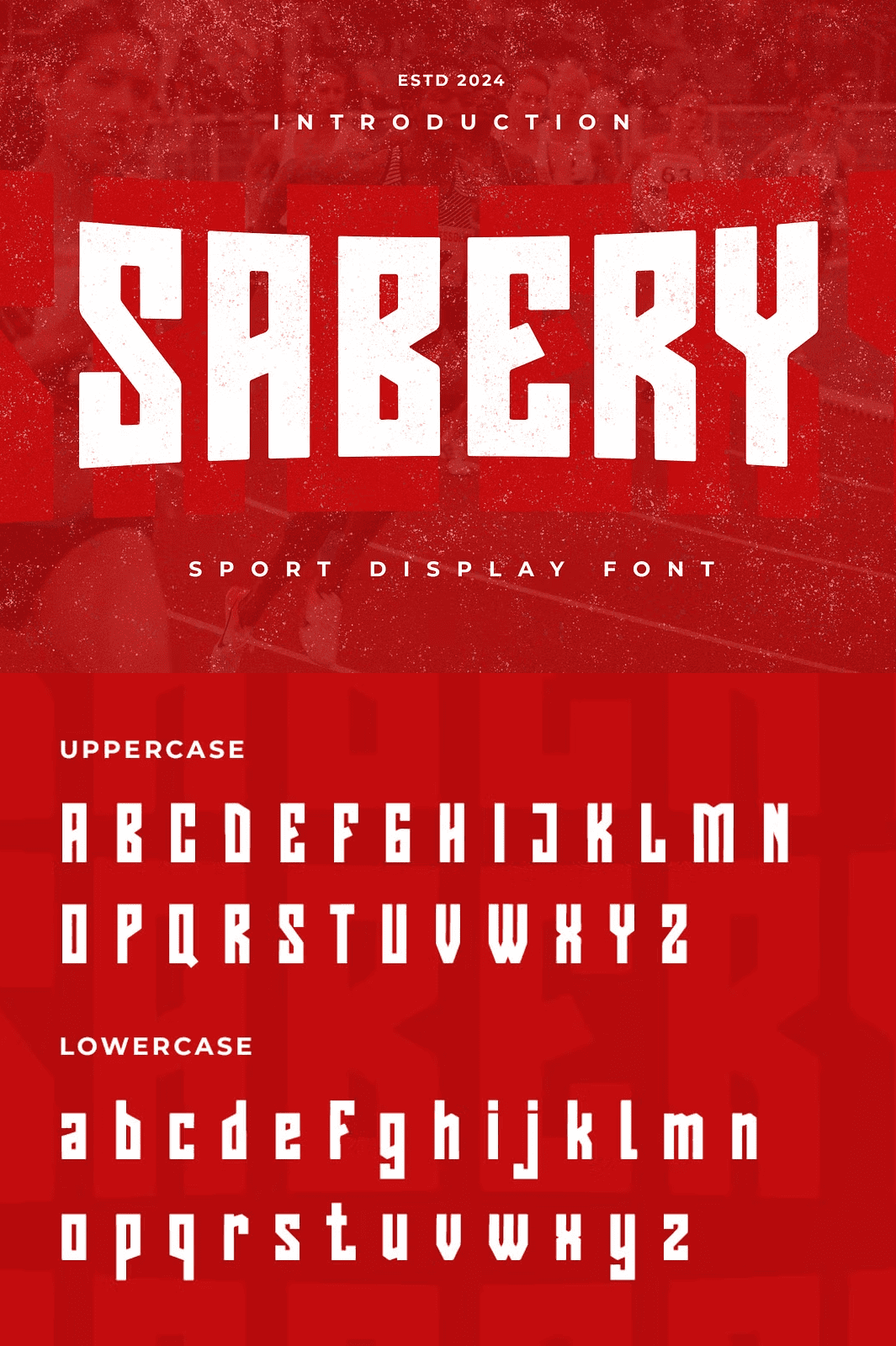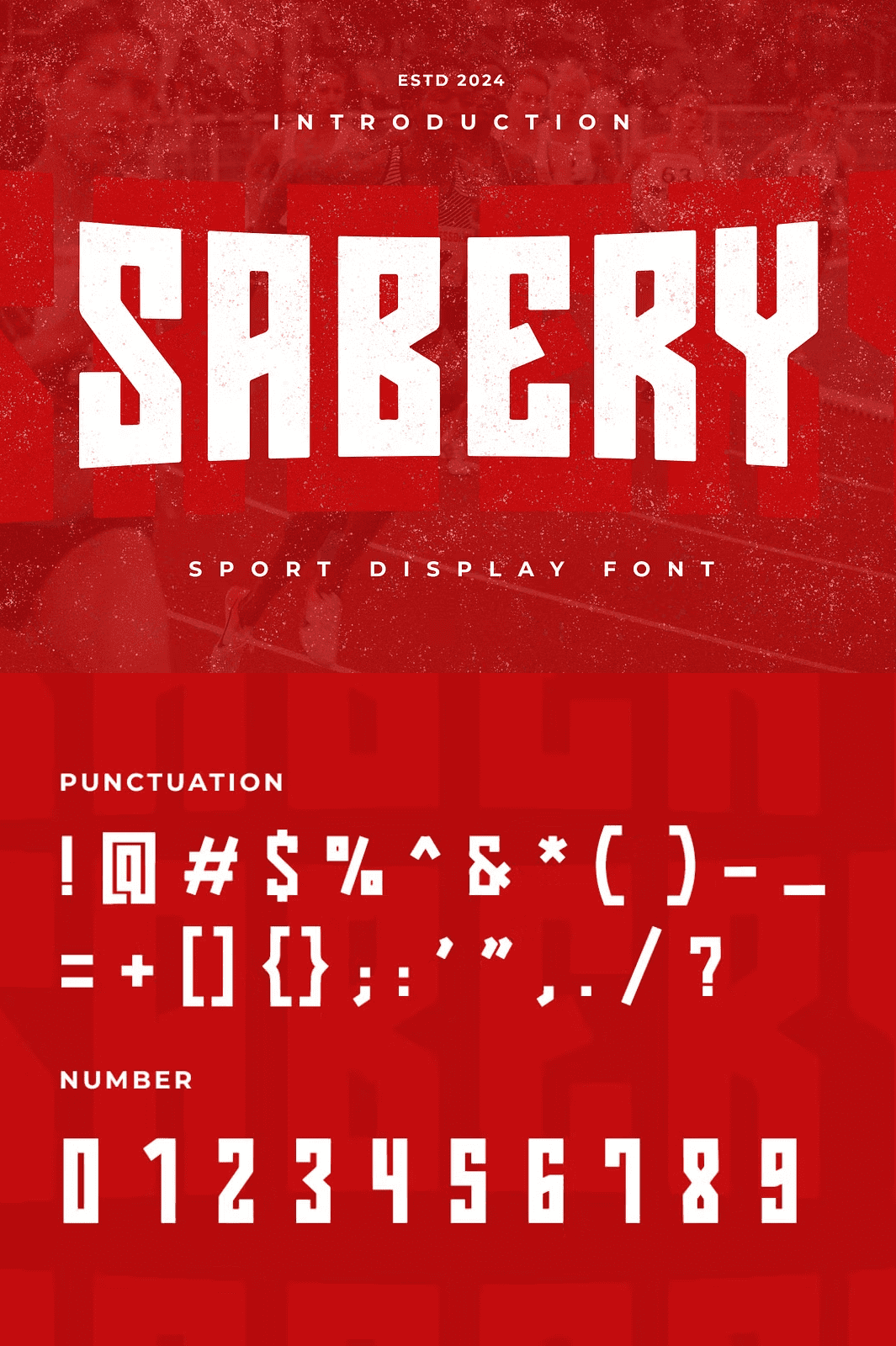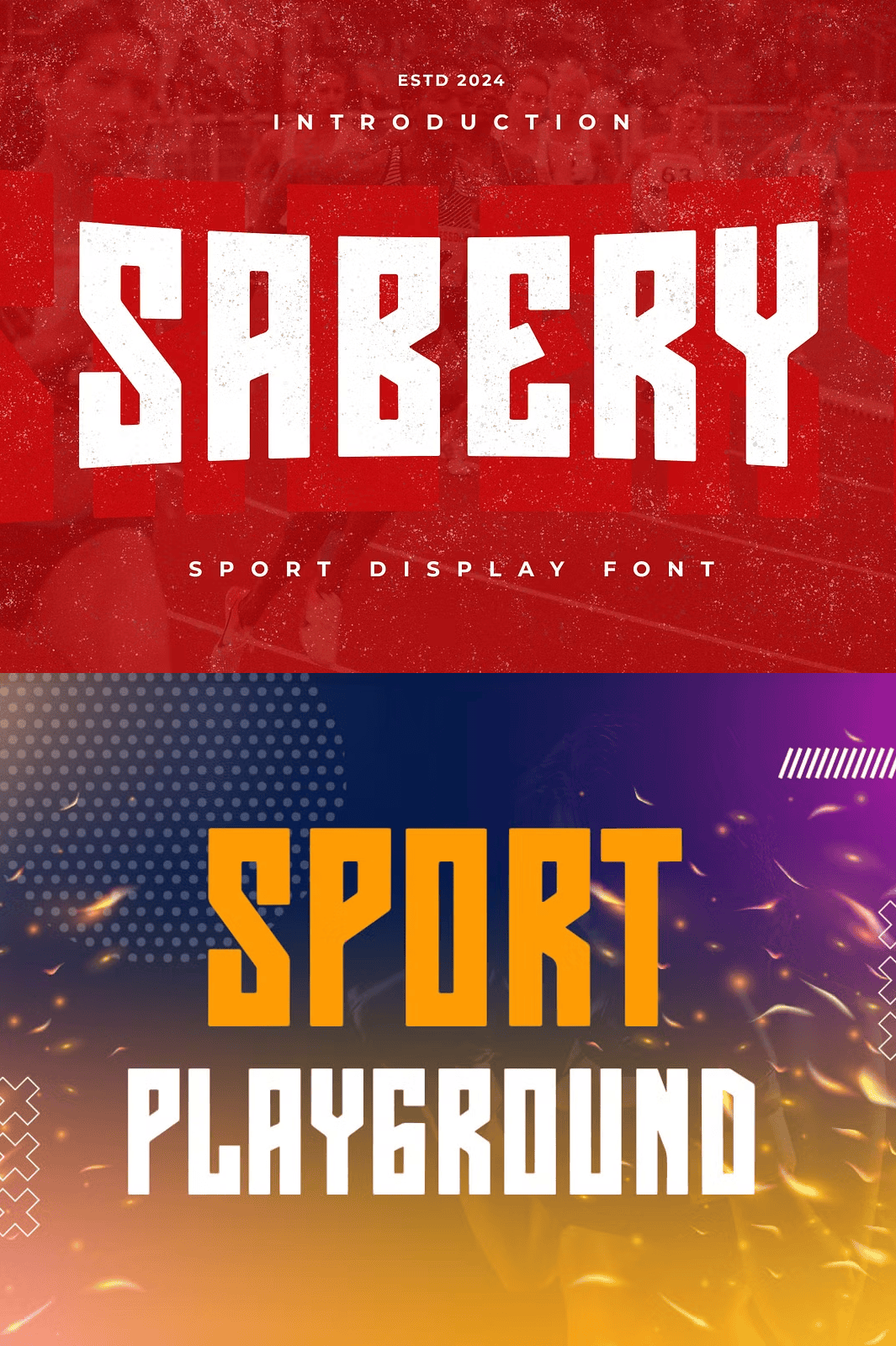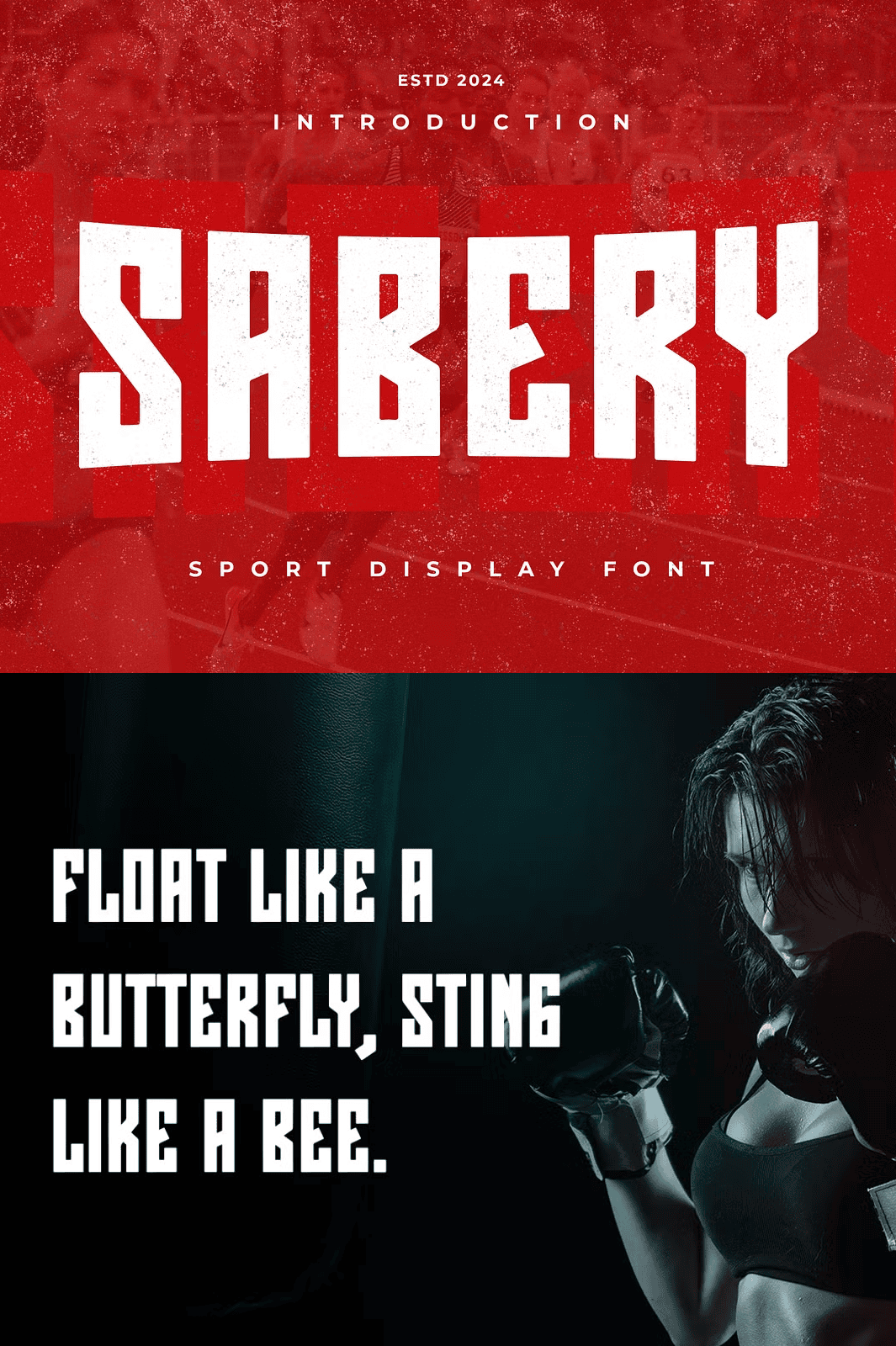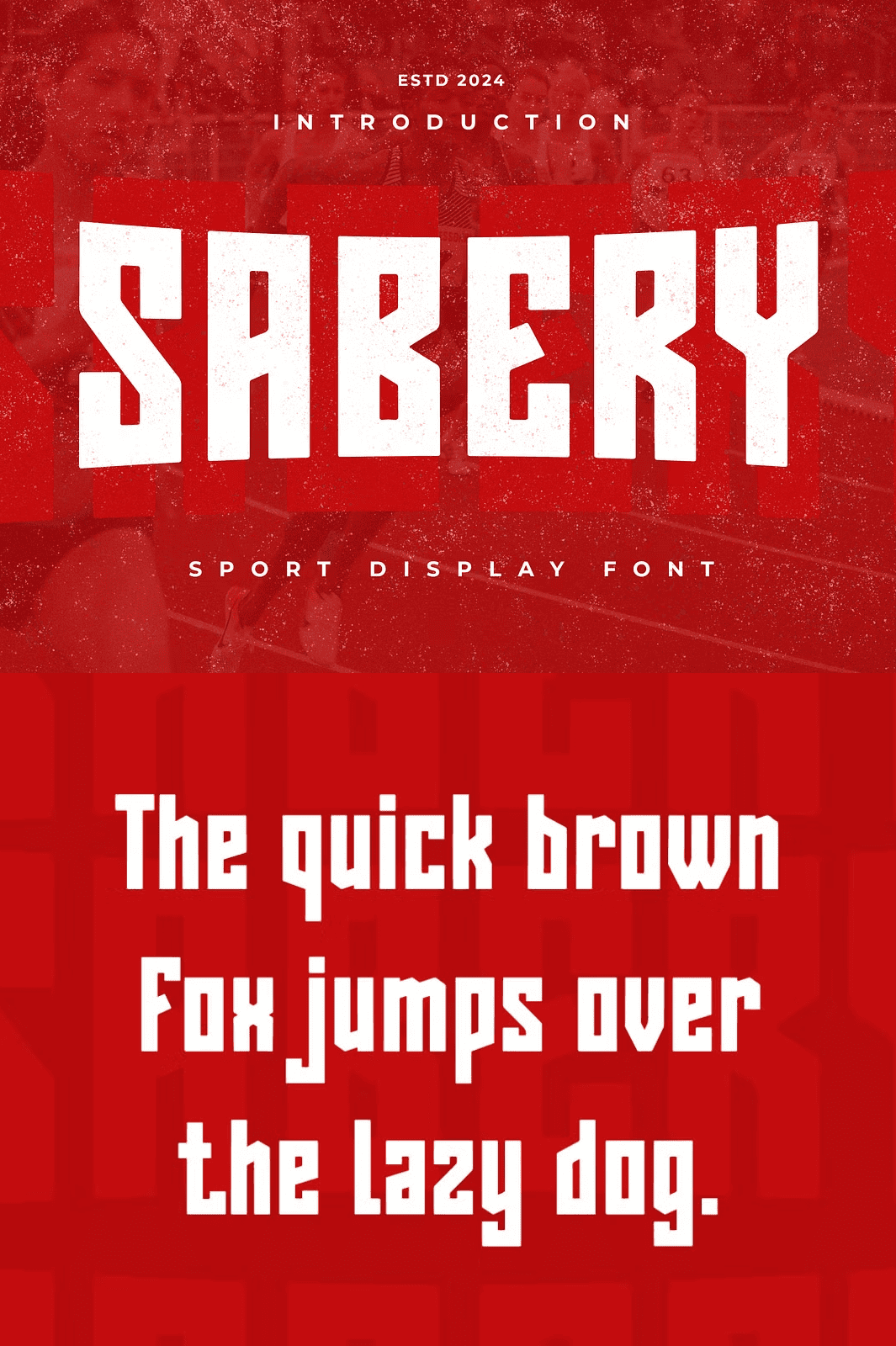
SABERY – Sport Display Font
Launch your designs into the spotlight with SABERY, a dynamic display typeface that redefines visual impact. Creators and brands alike turn to SABERY to infuse energy and originality into every element. This font excels in delivering sharp, athletic vibes perfect for high-stakes graphics. Designers harness its robust structure to craft logos that resonate, titles that dominate, and layouts that captivate audiences instantly. Whether you build promotional campaigns or elevate corporate identities, SABERY empowers you to stand out in crowded markets.
Unlock Endless Possibilities: Why SABERY Dominates Display Typography
SABERY surges ahead as the go-to choice for professionals seeking a typeface that blends sporty boldness with versatile flair. Imagine headlines that punch through noise or logotypes that embody strength and speed. This font transforms ordinary text into extraordinary statements, ideal for sports memorabilia, fitness branding, or adrenaline-fueled advertisements. Developers and marketers deploy SABERY to inject freshness into pamphlets, billboards, and social media visuals, ensuring messages hit hard and linger long.
At its core, SABERY thrives on simplicity and power. Its clean lines and exaggerated serifs create a sense of motion and urgency, drawing eyes directly to your content. Brands in the athletic sector, entertainment, and lifestyle industries adopt SABERY to amplify their narratives. You gain a tool that adapts seamlessly, whether you layer it in minimalist posters or bold marketing presentations. SABERY does not merely decorate—it drives engagement and conversion.
Key Features That Fuel Your Creative Fire
Dive deep into SABERY’s robust toolkit, engineered for efficiency and excellence. This typeface arrives loaded with essentials that streamline your workflow:
• Comprehensive Character Set—Access full uppercase and lowercase letters to mix formal and casual tones. Numbers and punctuations ensure polished, complete designs without gaps.
• Multilingual Support—SABERY handles diverse languages with ease, making it a global asset for international campaigns and inclusive branding.
These elements combine to offer unmatched flexibility. Experiment with kerning and scaling to fine-tune your vision, or pair SABERY with sans-serif complements for balanced hierarchies. Every feature invites innovation, turning static text into vibrant, interactive experiences.
Real-World Applications: Where SABERY Shines Brightest
Apply SABERY across a spectrum of projects to maximize its potential. Sports teams brand jerseys and event flyers with its athletic edge, capturing the thrill of competition. Marketing agencies deploy it for trade show banners and email newsletters, boosting click-through rates with commanding visuals. Graphic designers craft album covers and book titles, where SABERY’s uniqueness adds narrative depth.
In the corporate world, executives use SABERY for pitch decks and annual reports, conveying confidence and modernity. E-commerce stores highlight product lines with SABERY-scripted headers, driving sales through compelling storefronts. Even educators incorporate it into presentations for engaging lesson materials. Wherever bold expression matters, SABERY delivers results that inspire action.
Empower Your Brand: The SABERY Advantage in Action
Adopt SABERY to elevate your brand’s voice amid the digital clamor. This font fosters recognition by embedding memorable typography into user experiences. Clients notice the difference—your work gains traction faster, with higher shares and inquiries. SABERY’s sport-inspired design motivates audiences, turning passive viewers into active participants.
Consider case studies: A fitness app rebranded with SABERY saw user engagement spike by 30%, thanks to its motivational lettering. A promotional agency redesigned client ads, resulting in award-winning campaigns that broke through clutter. You replicate these successes by leveraging SABERY’s inherent energy. It not only beautifies but strategizes, aligning visuals with business goals.